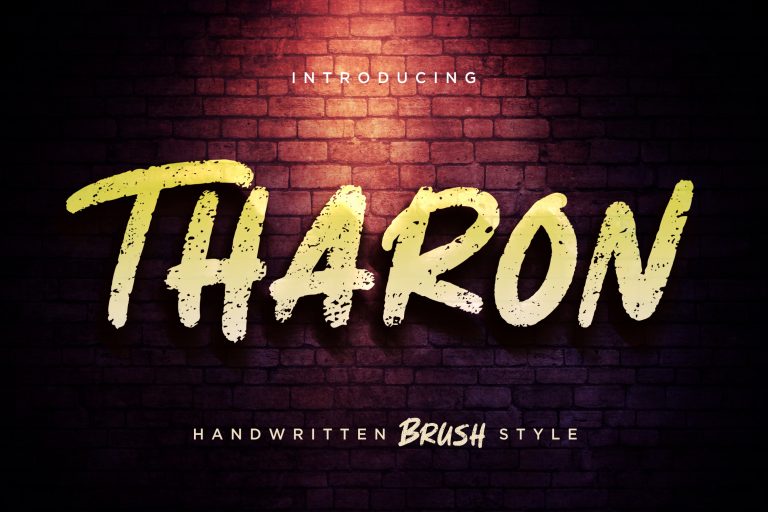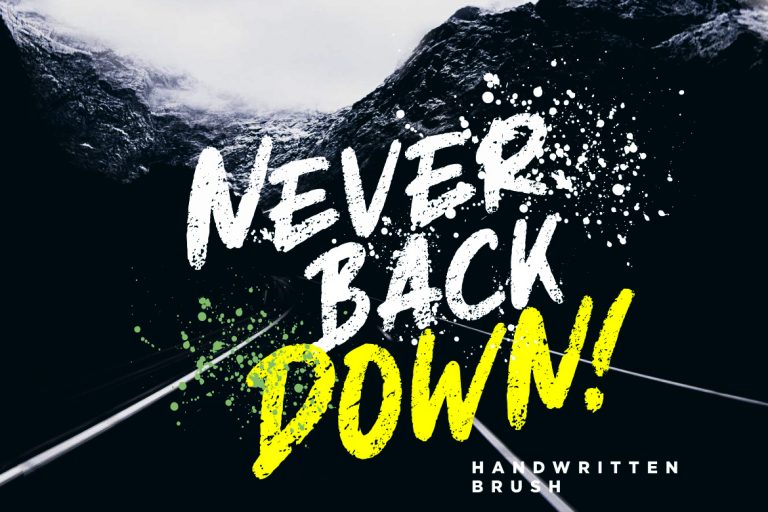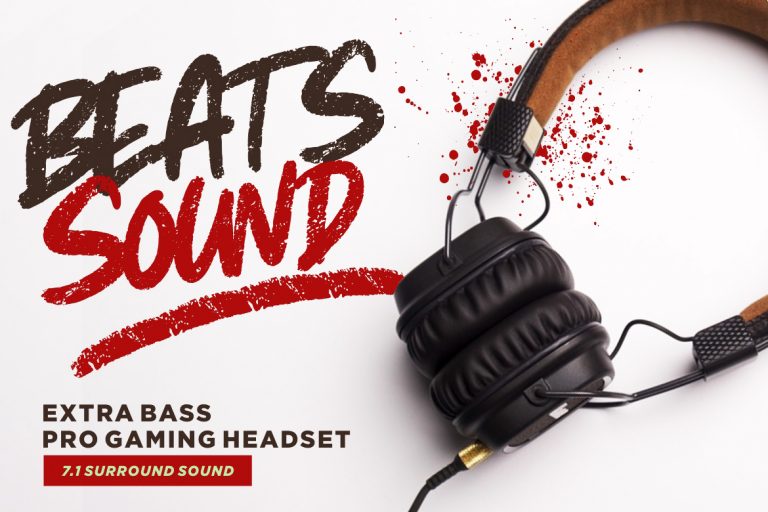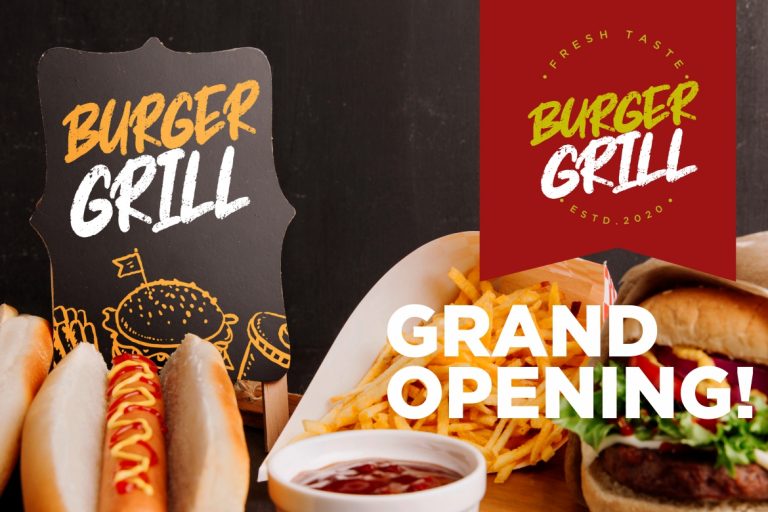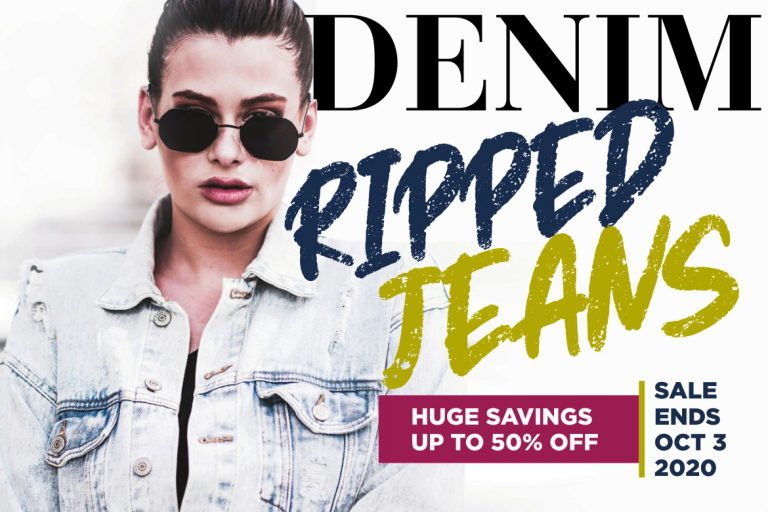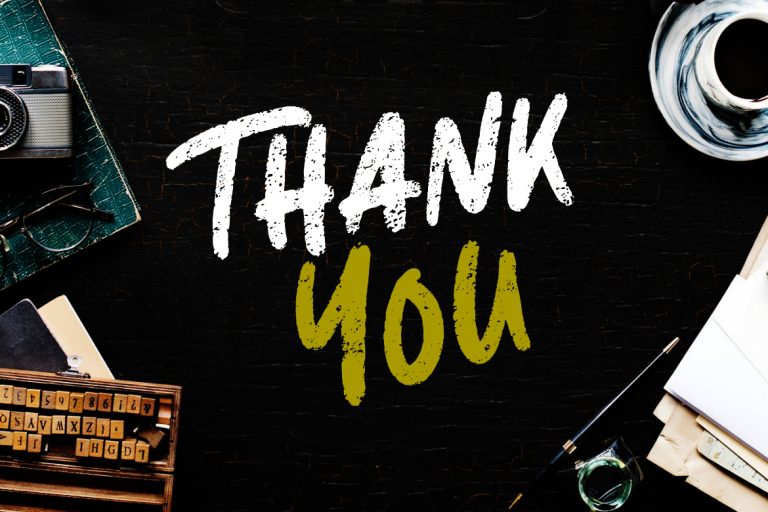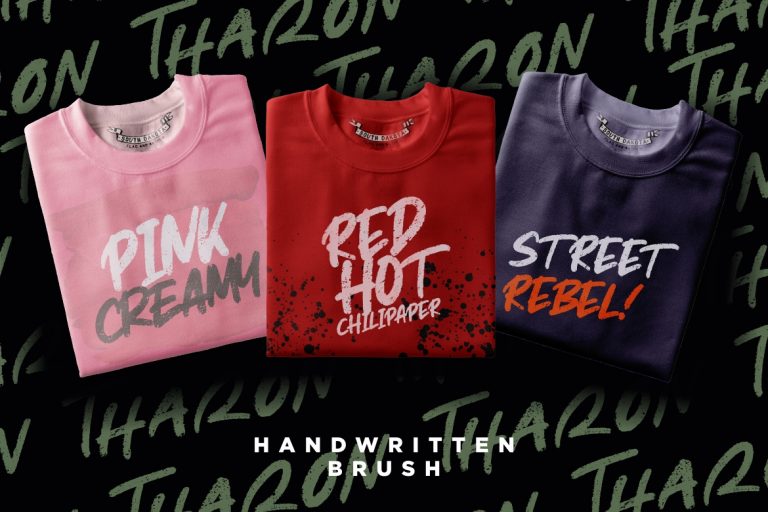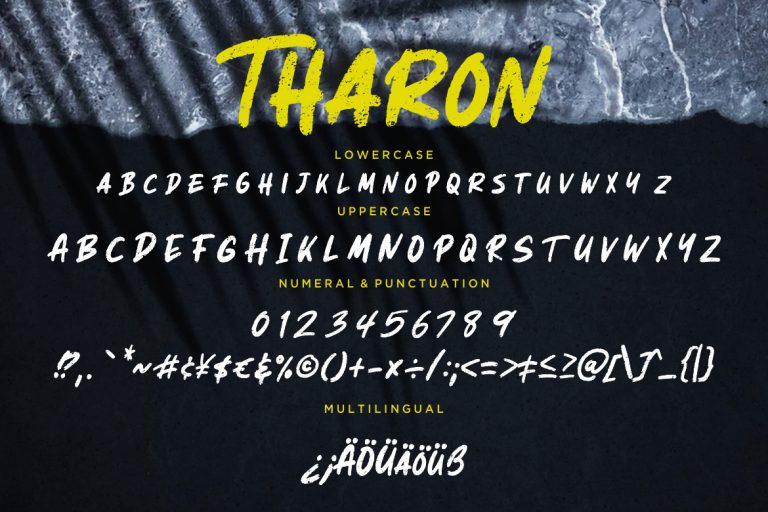
Tharon is handdrwan with brush style make this font looks bold and strong.
Tharon is perfect for branding projects, logo, wedding designs, social media posts, advertisements, product packaging, product designs, label, photography, watermark, invitation, stationery and any projects that need handwriting taste.
- Fonts include multilingual support for; ä ö ü Ä Ö Ü ß ¿ ¡
Tharon Brush Style